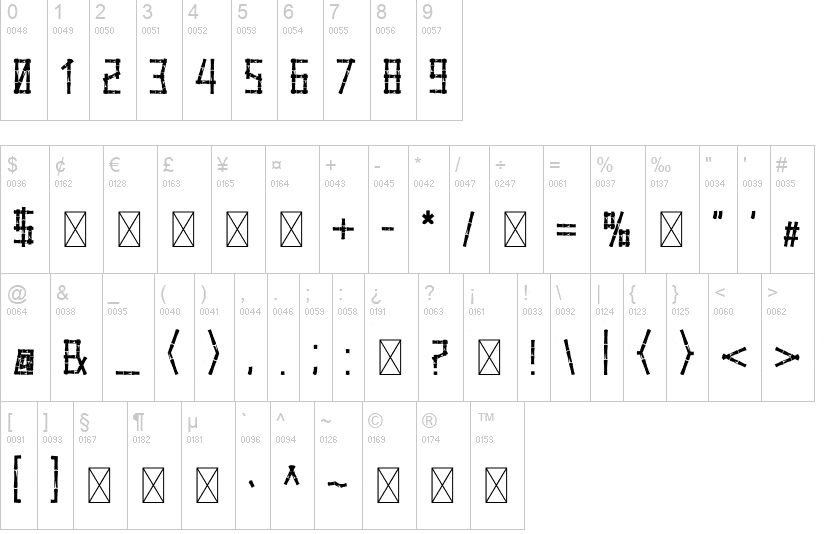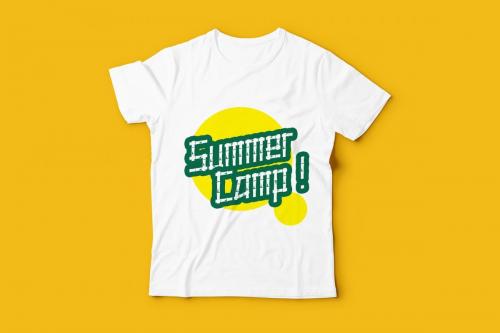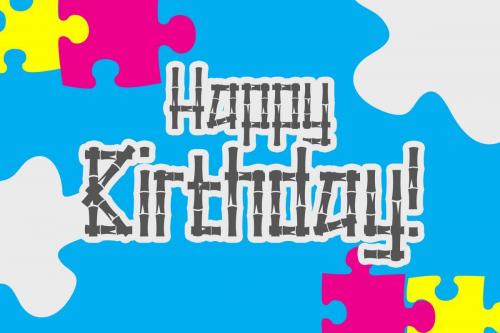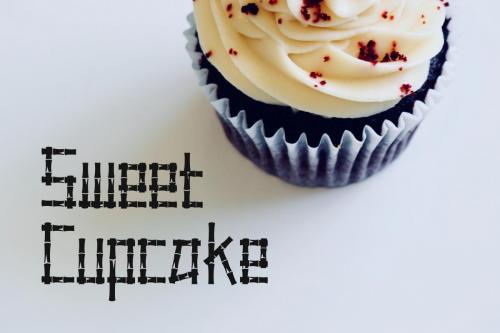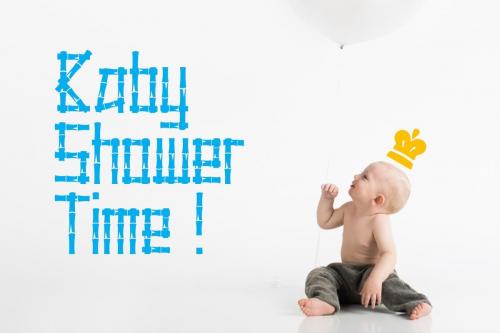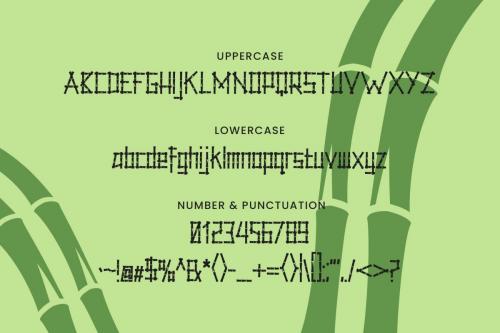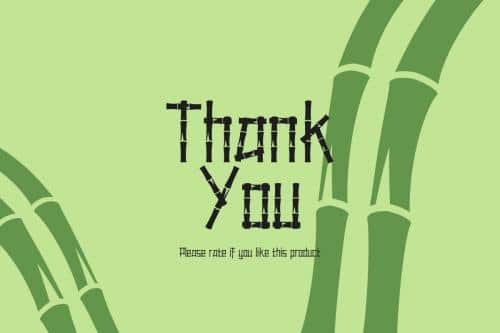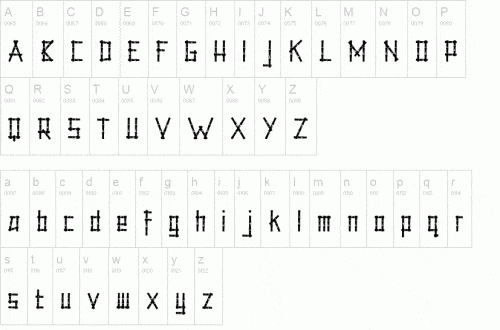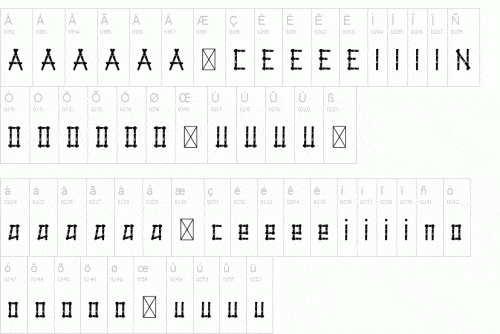
Little Bamboo is a kids funtype with a bamboo fun style. It features a modern style and will add a unique feel to your upcoming projects. Get inspired by manual handdrawn brush to make a natural messy could help to good display, uses for labeling, clothing, movie screen, baby shower, film title, gigs, or kid events. And also eye-catching appeal to your logo designs, brand imagery, handwritten quotes, product packaging, merchandise, social media post, or website font.
- Designer: TheAgrias